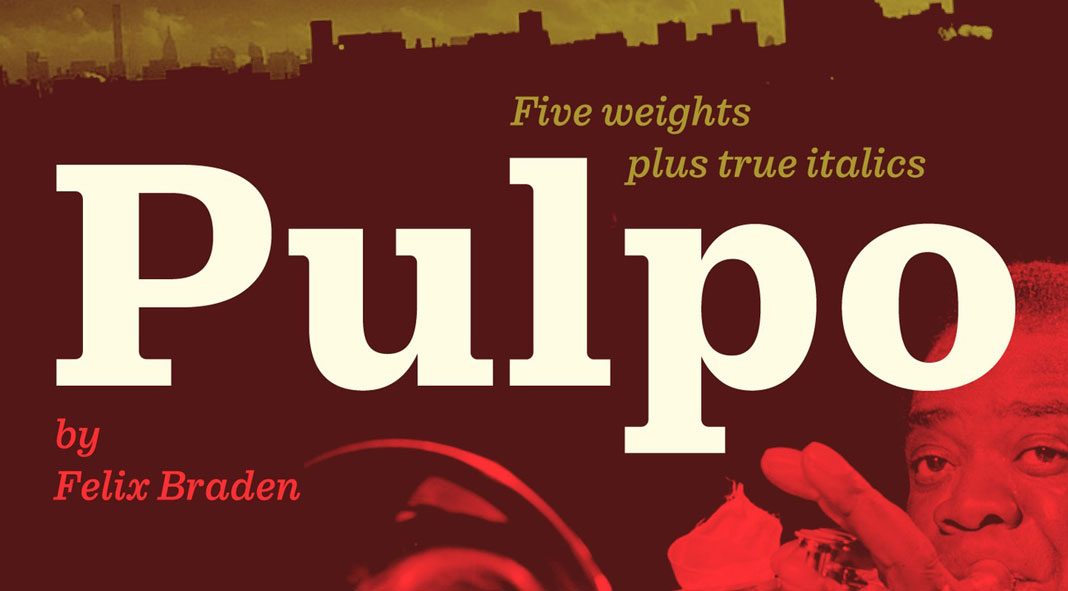
Pulpo, a sympathetic serif font family designed by Felix Braden of Floodfonts.
Pulpo is a new slab serif font family inspired by typefaces such as Century Schoolbook and Clarendon. Designed by Felix Braden of Floodfonts, Pulpo’s massive body is suitable for both print and on screen. Longer extenders give texts more space while improving legibility, especially in small text sizes. Despite the robust